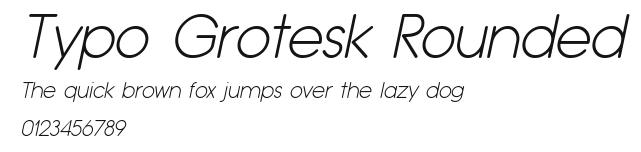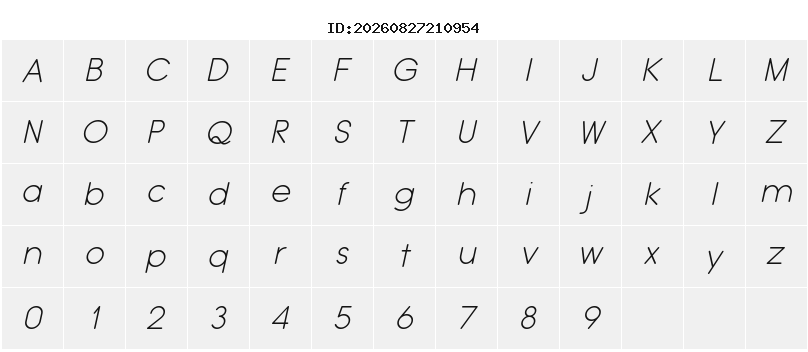
• Font Name: Typo Grotesk Rounded
• Manufacturer: StudioTypo
About Typo Grotesk Rounded.otf
Typo Grotesk Rounded.otf is a modern, elegant sans-serif font designed for ultimate readability and visual harmony. Perfect for branding, headlines, web design, and print materials.